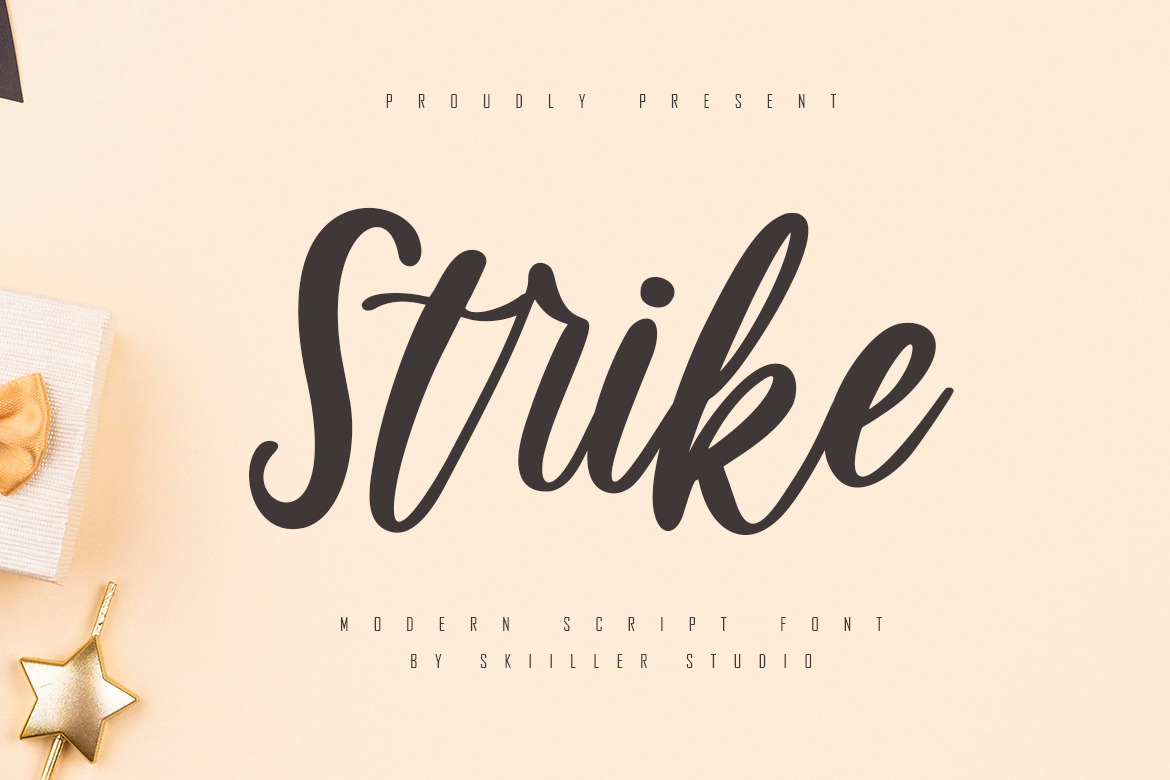
Strike - Modern Script Font
Strike Handwritten Script Font combined with a script so it looks elegant, suitable to support a variety of designs and your business